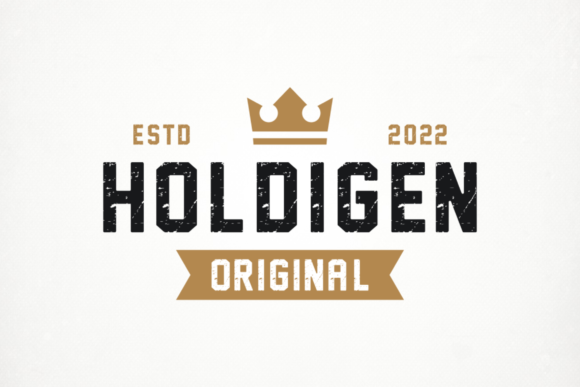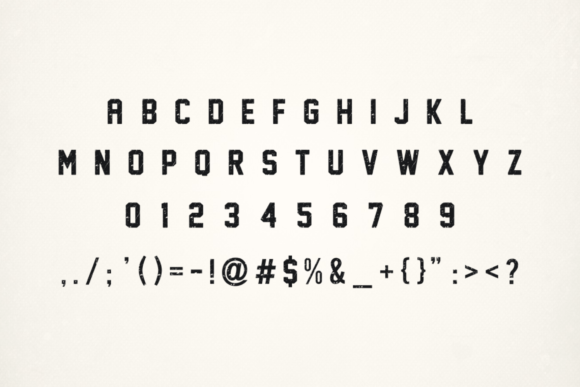
Introduction to Holdigen Font
Holdigen is a rough textured and thick lettered display font.
The font is suitable for any branding project like logo, t-shirt printing, sport, and more It will look outstanding in a wide range of contexts.
Key Features of Holdigen Font
Why Choose Holdigen Font?